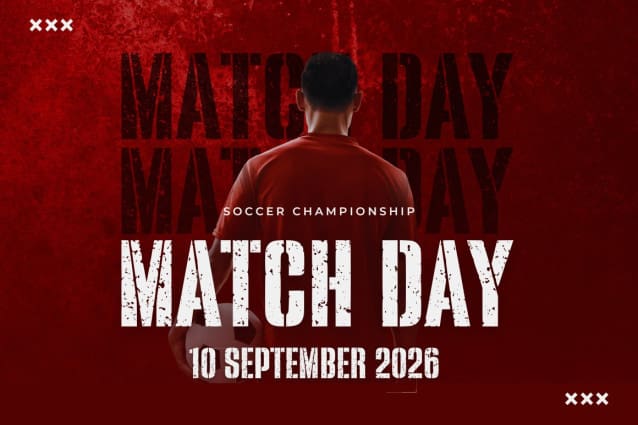
Warband Stencil Font
Warband Stencil Font is a bold stencil and textured font, designed to evoke a rugged, military-inspired aesthetic. Perfect for impactful headlines, posters, and army-themed designs, Warband delivers a strong, gritty feel for projects that need a commanding presence.